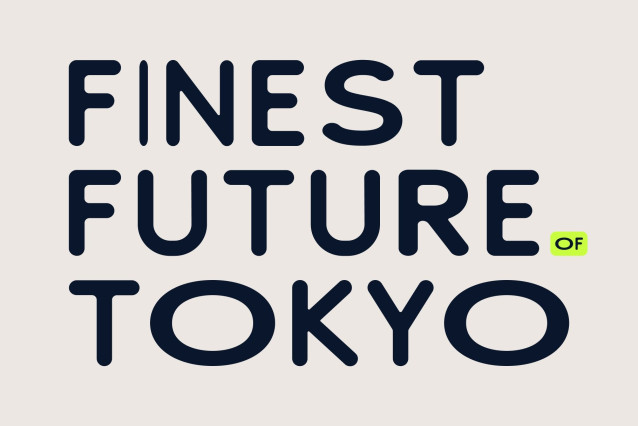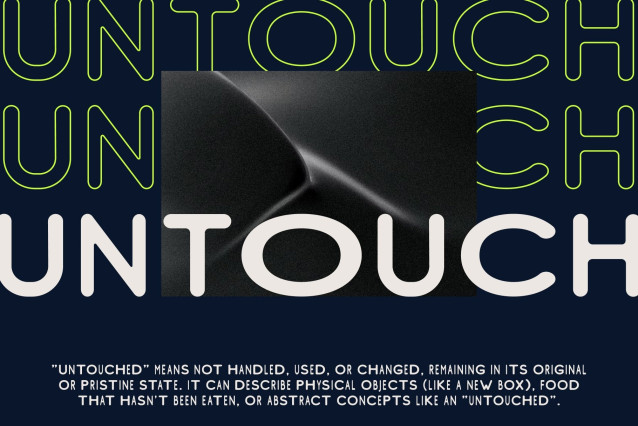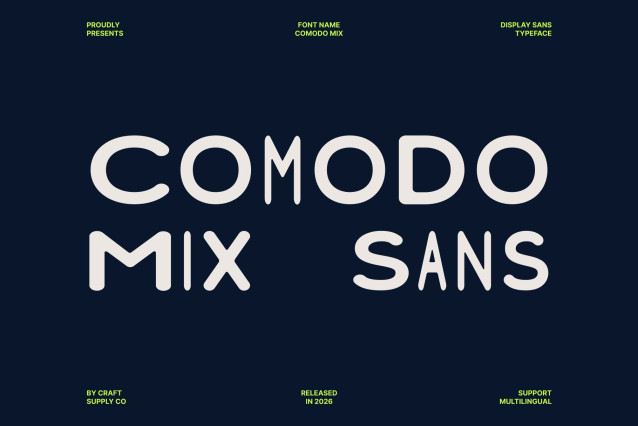
Comodo Mix – Rounded Geometric Sans Serif: Soft Modernism with Creative Character
Modern Sans Serif with Mixed Style Personality
This is a modern sans serif font that combines soft rounded forms with clean geometric precision. Designed to create a contemporary and approachable visual presence, this typeface introduces a distinctive mixed-style concept that adds rhythm, contrast, and personality to every composition. It transforms minimalist typography into a stylish design element that feels fresh, friendly, and modern.
A Harmonious Blend of Bold and Regular Letterforms
The defining character of this font lies in its thoughtful fusion of bold and regular styles. This mixed-weight approach creates a dynamic visual flow that enhances readability while adding expressive energy to layouts. The balance between strong and softer forms gives the font a unique personality that feels modern yet approachable, making designs more engaging and memorable.